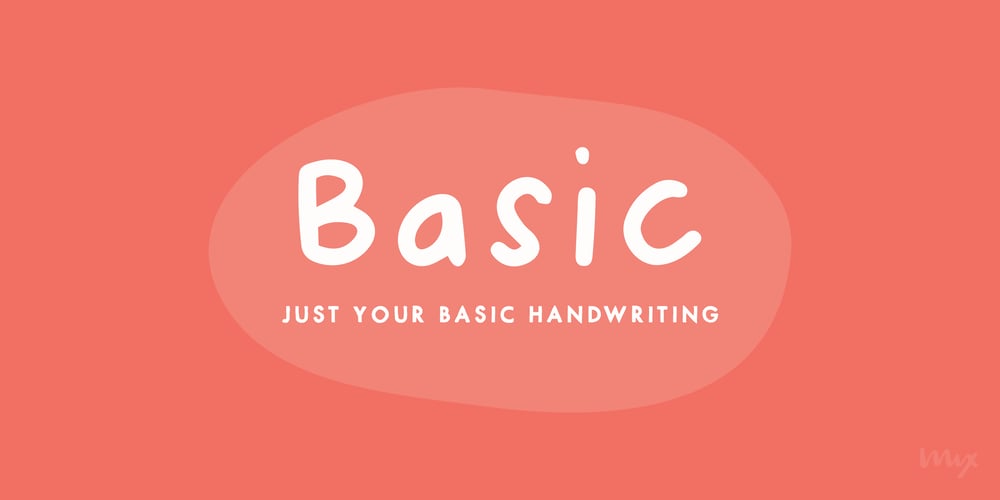
Mix Basic Font Family was designed by Mikko Sumulong and published by Mix Fonts. Mix Basic contains 1 styles and family package options. Mix Basic is just your basic everyday handwriting. This was written initially on a post-it using a fine tip Frixion pen. The font was then digitized, cleaned up, and converted into a font. Since this is basically your everyday handwriting, it has a multitude of creative applications. Think label design, greeting cards, social media quotes, handwritten notes replication, and more. Use as you please! Mix Basic includes the following characters: ABCDEFGHIJKLMNOPQRSTUVWXYZ abcdefghijklmnopqrstuvwxyz 0123456789 !@$#%^&*()`~•· ÷×+−±≈=≠≥≤[]<>:;’”,.|/?{}“”‘’-–—_…©®‹›«»°¹²³¡¿₱¢€£¥§† ÁÀÂÄÃÅĂĀĄÆĆĈČÇÐĐÉÈÊËĖĒĘĜĤIÍÌÎÏĪĮĴŁŃÑŇ ÓÒÔÖÕŌŐØŒŔŘŚŜŠȘŤȚÚÙÛÜŮŰŬŪŲẂẀŴÝŶŸŹẐŽŻÞ áàâäãåăāąæćĉčçðđéèêëėēęĝĥıíìîïīįĵłńñň óòôöõōőøœŕřśŝšșťțúùûüůűŭūųẃẁŵýŷÿźẑžżþ Alternates/Ligatures for: & R a e i m o u y ee mm nn oo rr tt